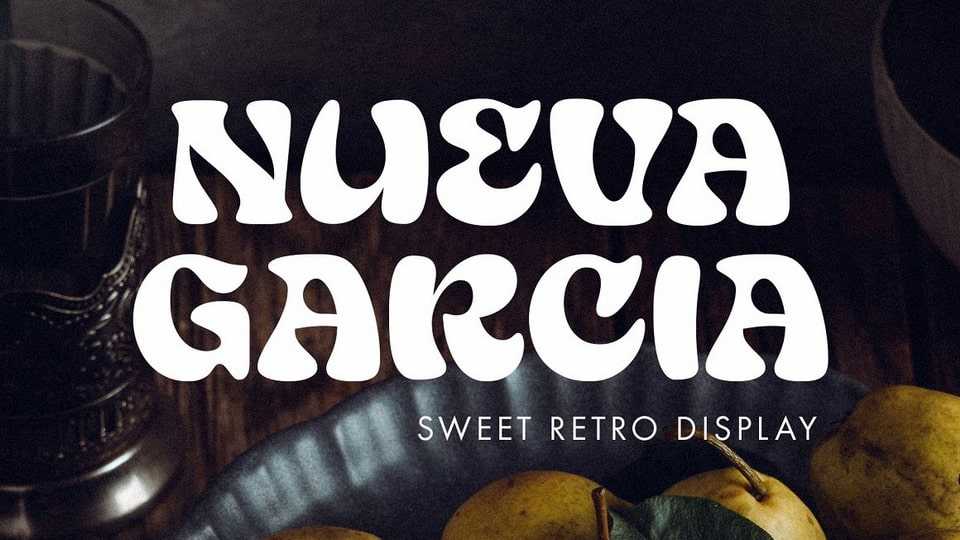
Download Nueva Garcia font, a bold and playful typeface that combines retro groovy and psychedelic styles. Its slightly ‘quirky’ shape adds a unique charm, making it perfect for use in displays or titles.